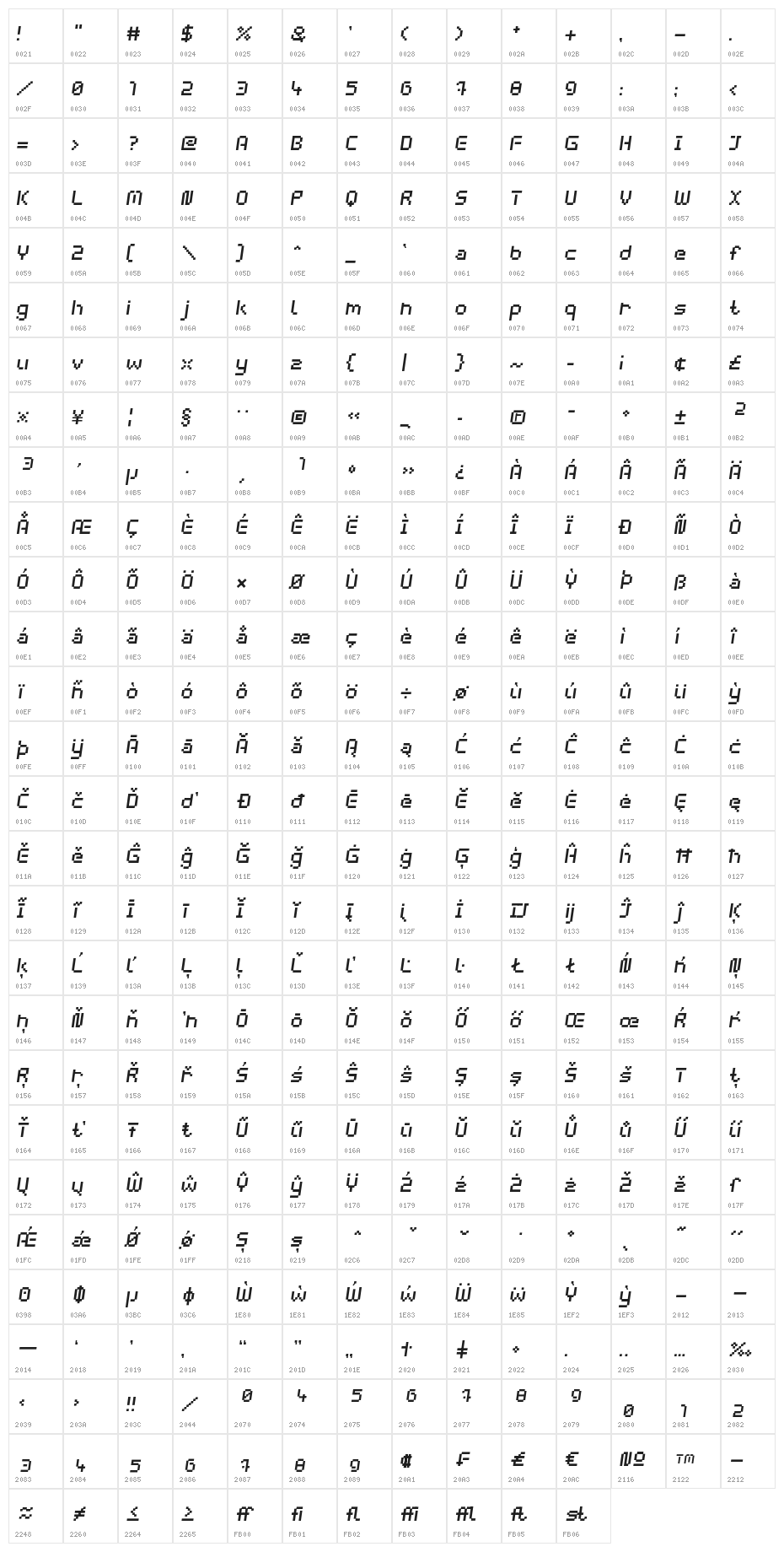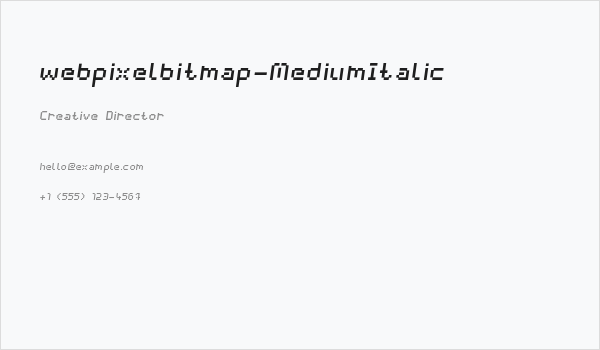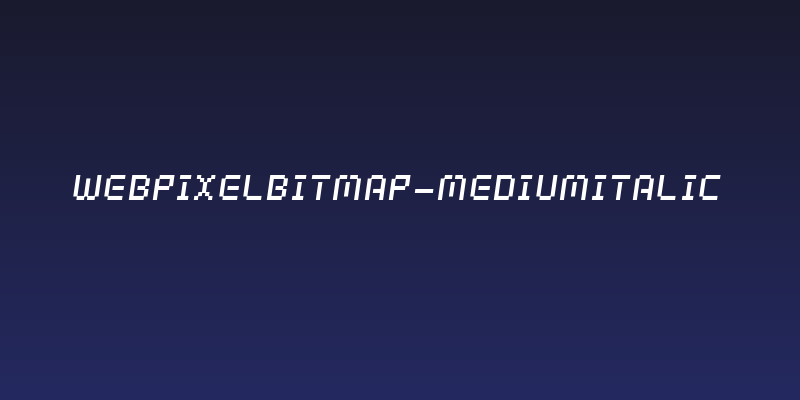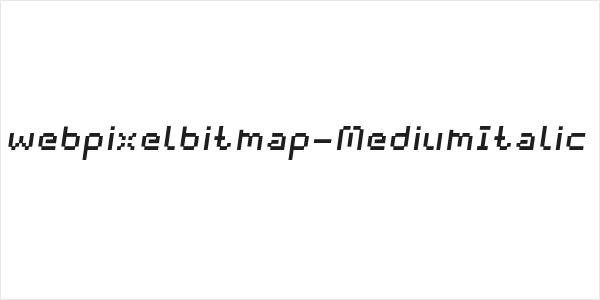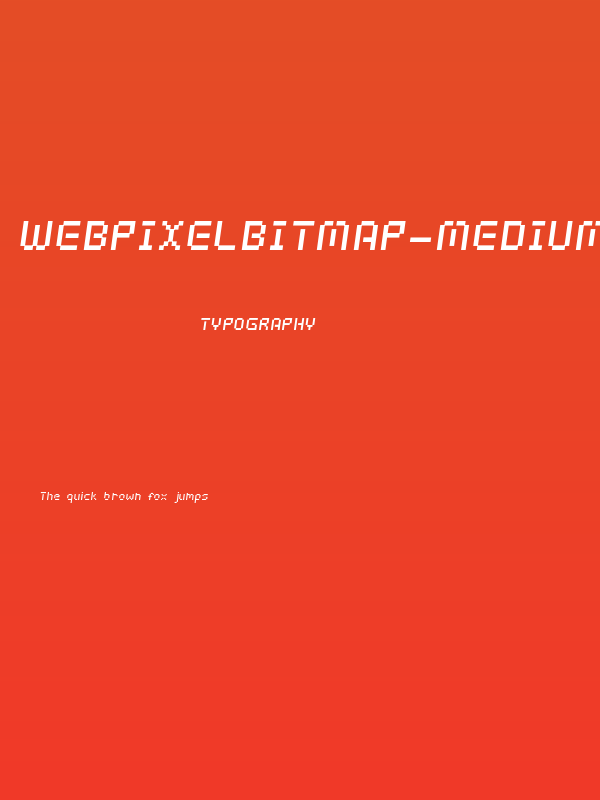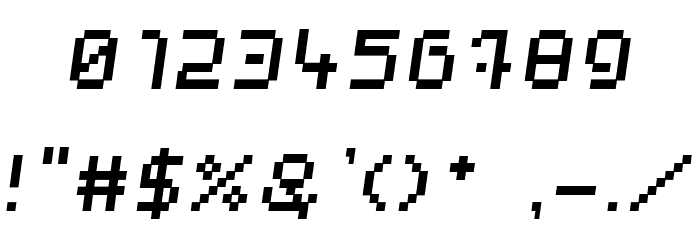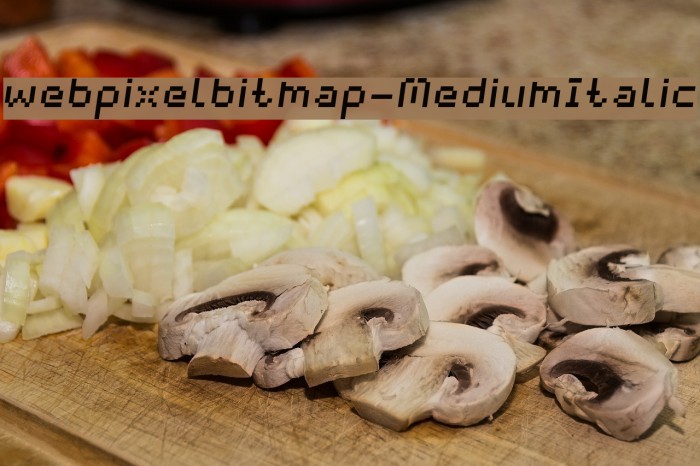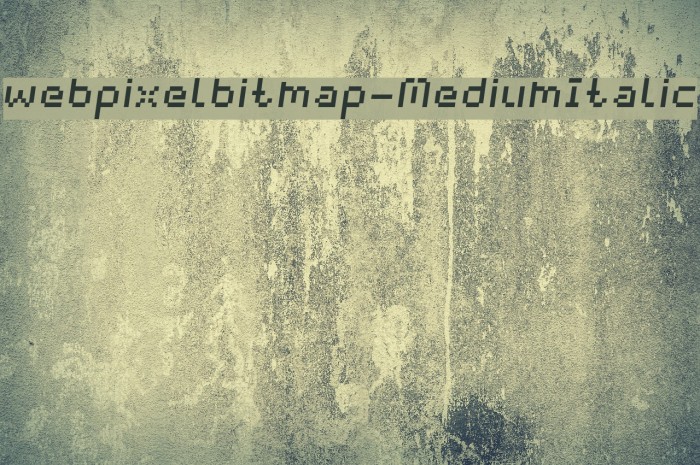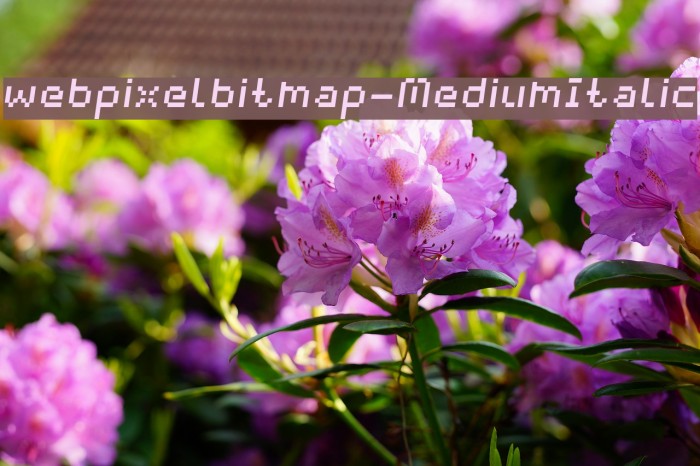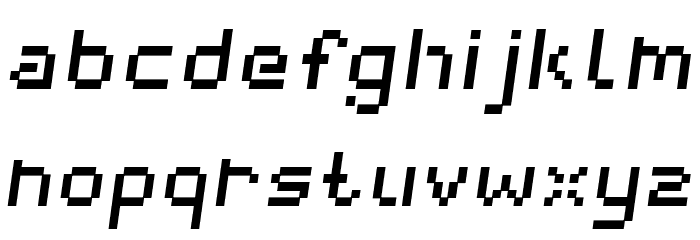
webpixelbitmap-MediumItalic Font
webpixelbitmap-MediumItalic Description
This font features a pixelated, bitmap style with a medium weight and italic slant. The characters are composed of small square blocks, giving it a digital, retro appearance reminiscent of early computer graphics. The italic angle adds a dynamic, forward-leaning aspect to the otherwise rigid structure. Each character is distinct, with consistent spacing and a uniform grid-like pattern. The font includes a full set of uppercase and lowercase letters, numbers, and a variety of special characters, making it versatile for digital-themed projects.
| Use Case | Logos, Headlines, Digital Art |
| Proposed Projects | Ideal for video game graphics, retro-themed designs, digital art projects, and tech-related branding. |